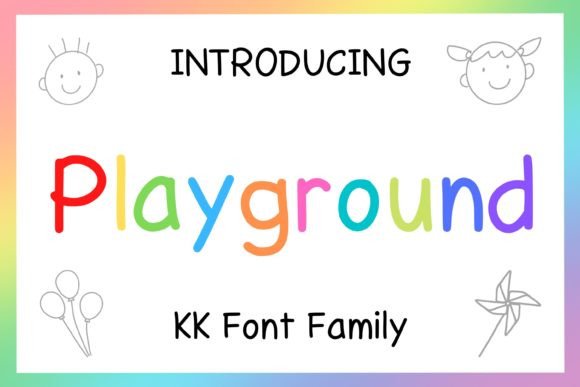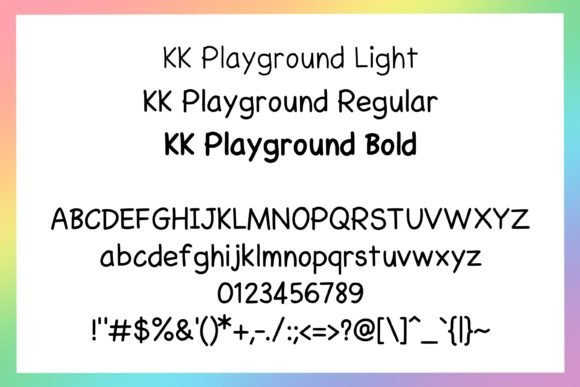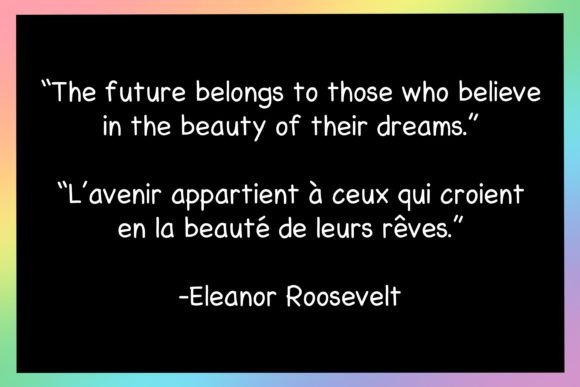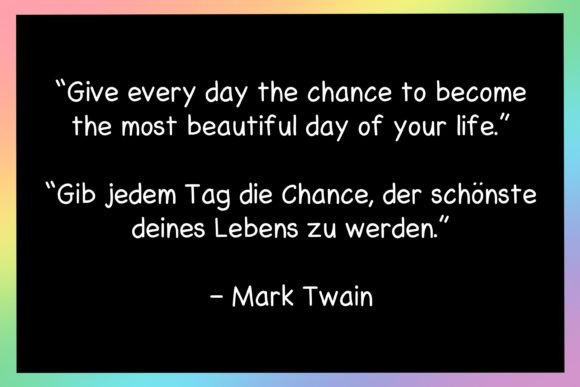
Playground Font
About Playground Font
**”Playground”** is a cool and fun handwritten font that boasts a natural and unique style, making it incredibly adaptable to a wide range of design concepts. The font’s versatility allows you to explore a multitude of creative possibilities, with the only limit being your imagination.
The playful and fun nature of **”Playground”** makes it suitable for various design applications. Whether you’re working on branding, posters, invitations, social media graphics, or any other creative project, this font adds a sense of whimsy and character to your work.
For branding and logo design, **”Playground”** offers a distinct and memorable option. Its natural and unique style can help your brand stand out and leave a lasting impression on your audience.
Posters designed with **”Playground”** take on a lively and eye-catching quality. The font’s playful appearance ensures that your message or visuals capture attention and convey a sense of fun.
Invitations, whether for events or special occasions, benefit from **”Playground’s”** fun and handwritten style. It adds a touch of creativity and informality to your invitation designs, making them more engaging and approachable.
Social media graphics and content become more visually appealing with the use of **”Playground.”** It injects a sense of playfulness and character into your posts, helping you connect with your audience effectively.
In summary, **”Playground”** is a cool and fun handwritten font that invites creativity and imagination. Its natural and unique style makes it a valuable asset for a wide range of design projects, allowing you to infuse playfulness and character into your work, no matter the context or application.